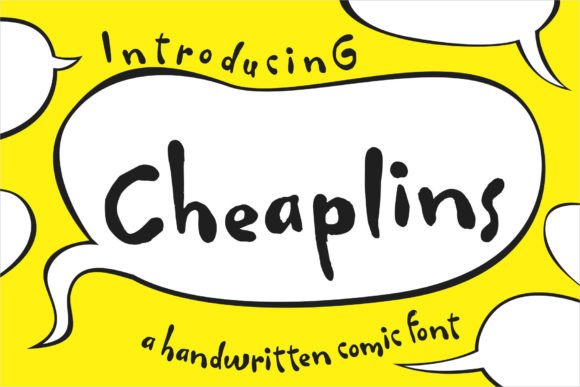
Introducing Cheaplins Font: The Sweet and Friendly Comic Style Handwritten Font
Are you looking for a font that can add a touch of sweetness and friendliness to your designs? Look no further than Cheaplins Font! This comic style handwritten font is perfect for a wide range of design projects, from playful kids’ materials to creative branding and advertising. In this article, we’ll take a closer look at Cheaplins Font, its unique features, and how you can use it to take your designs to the next level.
What is Cheaplins Font?
Cheaplins Font is a carefully crafted, comic style handwritten font that exudes a sense of warmth and approachability. Its natural and unique style makes it incredibly versatile, allowing you to use it in a variety of design projects. Whether you’re creating a fun and playful kids’ book, a creative brand identity, or an engaging advertisement, Cheaplins Font is the perfect choice.
Key Features of Cheaplins Font
- Sweet and Friendly Style: Cheaplins Font has a distinct sweet and friendly style that is sure to capture the attention of your audience.
- Natural and Unique: The font’s natural and unique style makes it stand out from other fonts, giving your designs a fresh and creative look.
- Comic Style Handwritten: Cheaplins Font has a playful, comic style handwritten look that adds a touch of whimsy to your designs.
- Highly Versatile: The font’s versatility makes it suitable for a wide range of design projects, from kids’ materials to creative branding and advertising.
The Benefits of Using Cheaplins Font
Using Cheaplins Font in your designs can bring a range of benefits, including:
- Emotional Connection: The font’s sweet and friendly style can help create an emotional connection with your audience, making your designs more relatable and engaging.
- Creativity and Originality: Cheaplins Font’s unique style can add a touch of creativity and originality to your designs, setting you apart from others.
- Flexibility: The font’s versatility makes it easy to use in a variety of design projects, from digital to print.
How to Use Cheaplins Font in Your Designs
Using Cheaplins Font in your designs is easy! Here are a few tips to get you started:
- Kids’ Materials: Use Cheaplins Font in kids’ books, educational materials, and games to create a fun and playful atmosphere.
- Branding and Advertising: Use the font in branding and advertising materials to add a touch of creativity and friendliness to your campaigns.
- Digital and Print: Use Cheaplins Font in both digital and print designs, from social media graphics to flyers and brochures.
Tips for Getting the Most Out of Cheaplins Font
Here are a few tips for getting the most out of Cheaplins Font:
- Experiment with Colors: Try pairing Cheaplins Font with a range of colors to create a unique and eye-catching look.
- Play with Typography: Experiment with different typography techniques, such as bolding and italicizing, to add emphasis and create visual interest.
- Mix and Match: Try pairing Cheaplins Font with other fonts to create a unique and creative look.
Cheaplins Font is a sweet and friendly, comic style handwritten font that is perfect for a wide range of design projects. Its natural and unique style makes it incredibly versatile, allowing you to use it in everything from kids’ materials to creative branding and advertising. With its emotional connection, creativity, and flexibility, Cheaplins Font is the perfect choice for designers looking to add a touch of whimsy and fun to their designs.